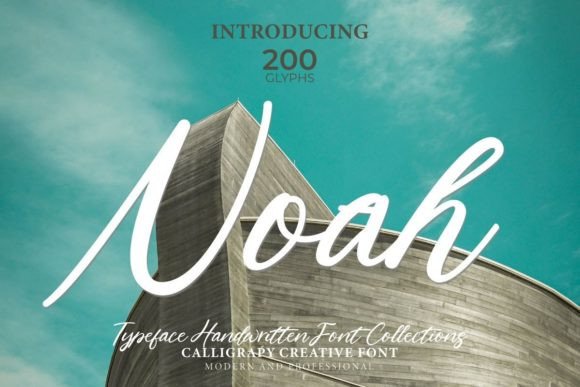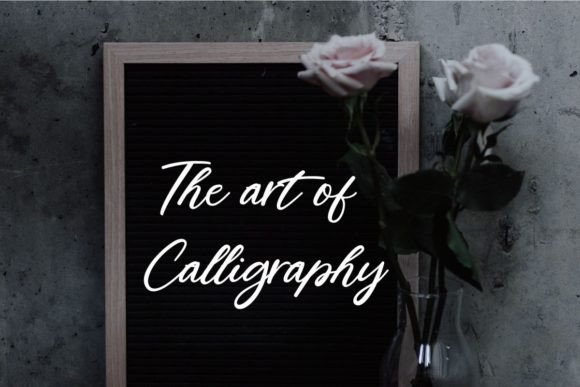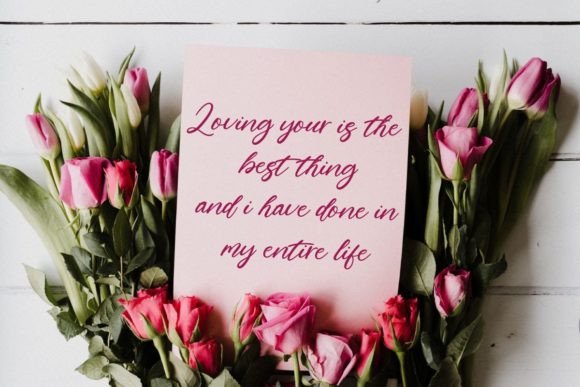
About Noah Font
Noah is a truly beautiful handwritten font that adds a touch of elegance and charm to various design projects. Its versatile nature makes it the perfect choice for a wide array of creative endeavors. Whether you’re working on wall displays, wedding invitations, social media post logos, advertisements, product packaging, product designs, labels, photography, watermarks, invitations, stationery, or any project that demands impressive typography, Noah rises to the occasion with its captivating style.
When used in wall displays, Noah transforms ordinary spaces into visually appealing showcases. Its graceful letterforms create an artistic atmosphere, making the message on the wall not just words, but a work of art. In wedding invitations, Noah lends a romantic and personal touch, setting the perfect tone for a memorable celebration. The handwritten feel adds sincerity to the invitations, making recipients feel cherished and valued.
For social media post logos and advertisements, Noah captures attention with its unique and stylish appearance. Its elegance makes your branding memorable, ensuring that your message stands out in the digital landscape. In product packaging and designs, Noah adds a touch of sophistication, making your products visually appealing and enticing for customers. Its versatility shines in labels and watermarks, enhancing the professional look of your work while adding a subtle artistic flair.
Noah’s beauty extends to invitations and stationery, where its elegant script enhances the overall aesthetic. From formal events to intimate gatherings, this font elevates the design, making every detail special and memorable.
In essence, Noah is more than just a font; it’s a tool that empowers your creativity. Its impressive typography makes every project it touches truly remarkable. So, whether you’re a designer, photographer, or anyone passionate about creating visually striking content, Noah is your go-to choice. Embrace the beauty of Noah, and let your creativity flow in projects that leave a lasting impression.